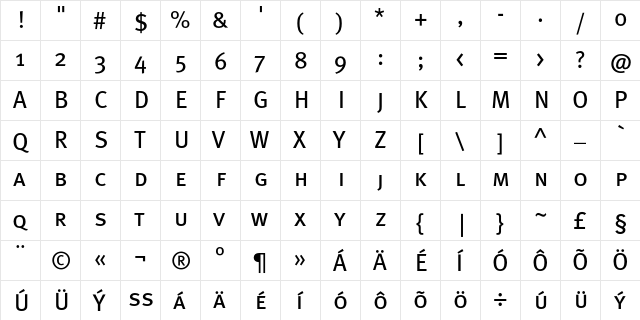
MetaBookCE Caps
Design Context for MetaBookCE Typeface
MetaBookCE offers clean, dependable letterforms without strong stylistic allegiance, making it a practical choice for designers who need flexibility.